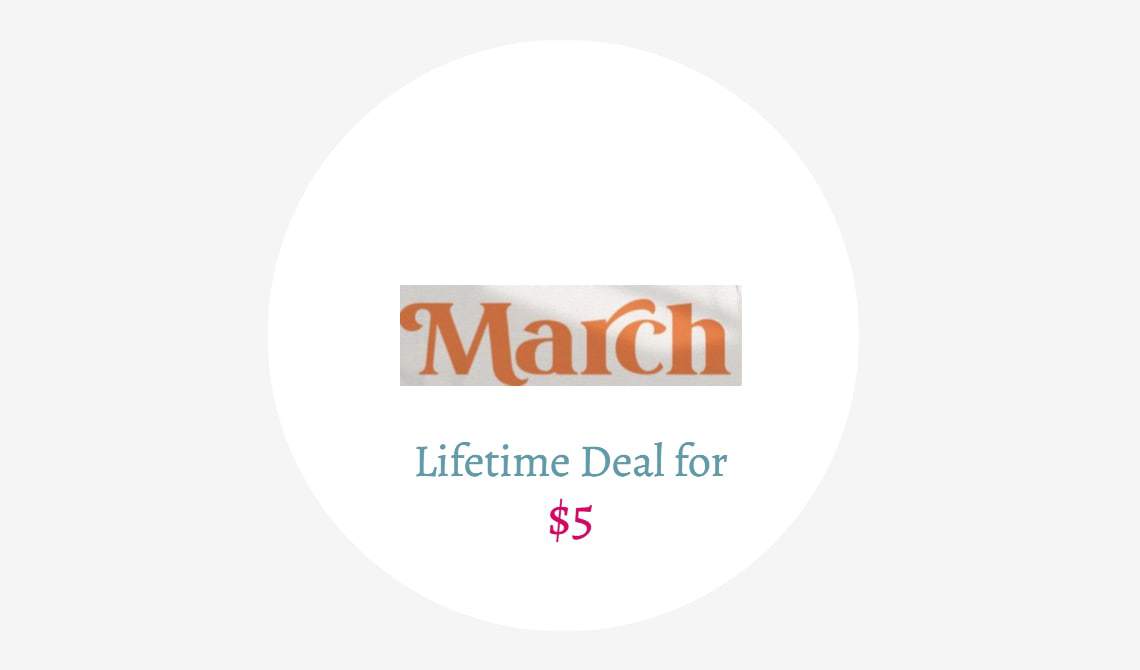
A modern and clean display font to help inspire your latest artistic project.
Clean, modern display Serif font.
60+ alternates.
Multilingual support.